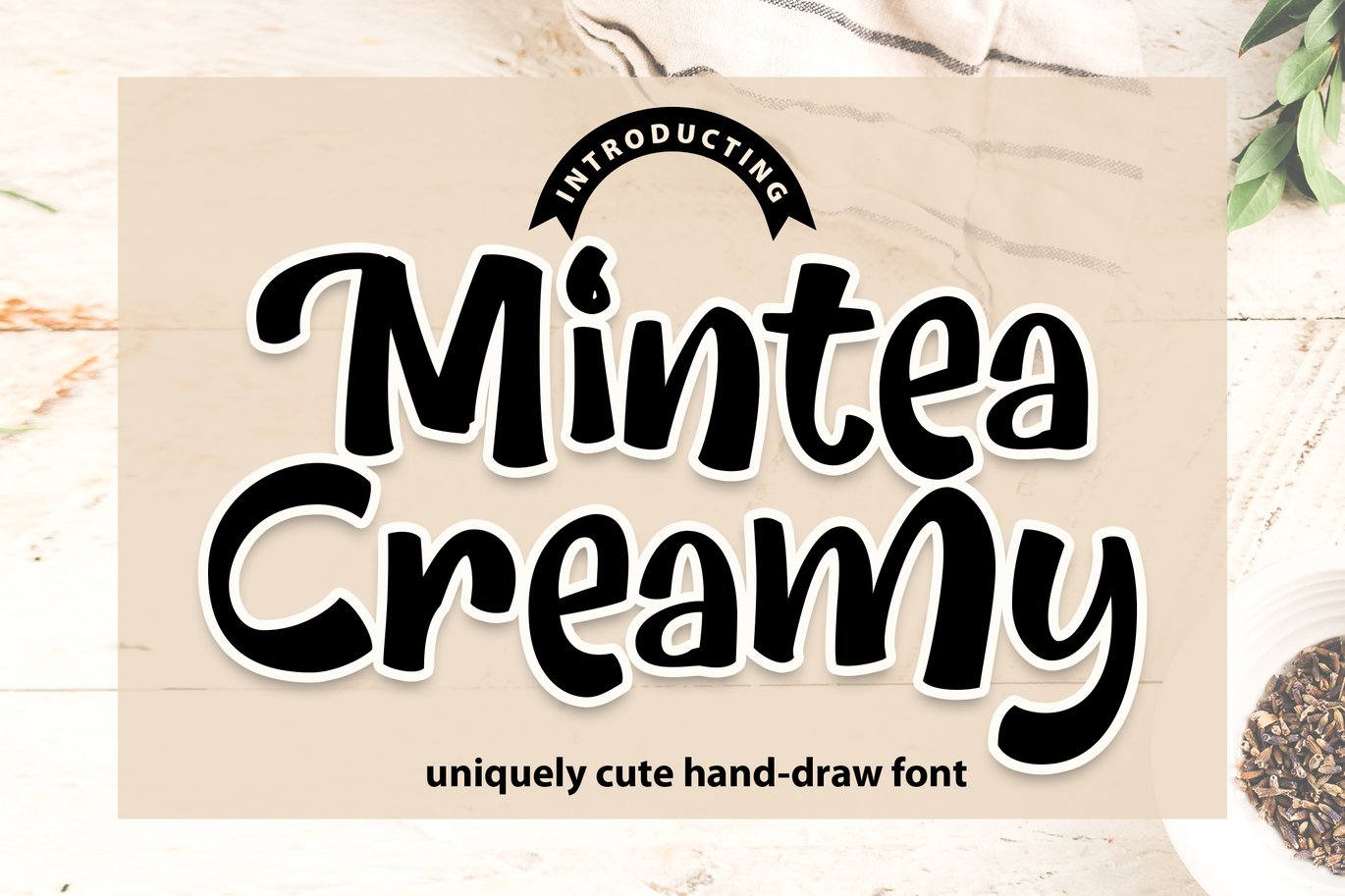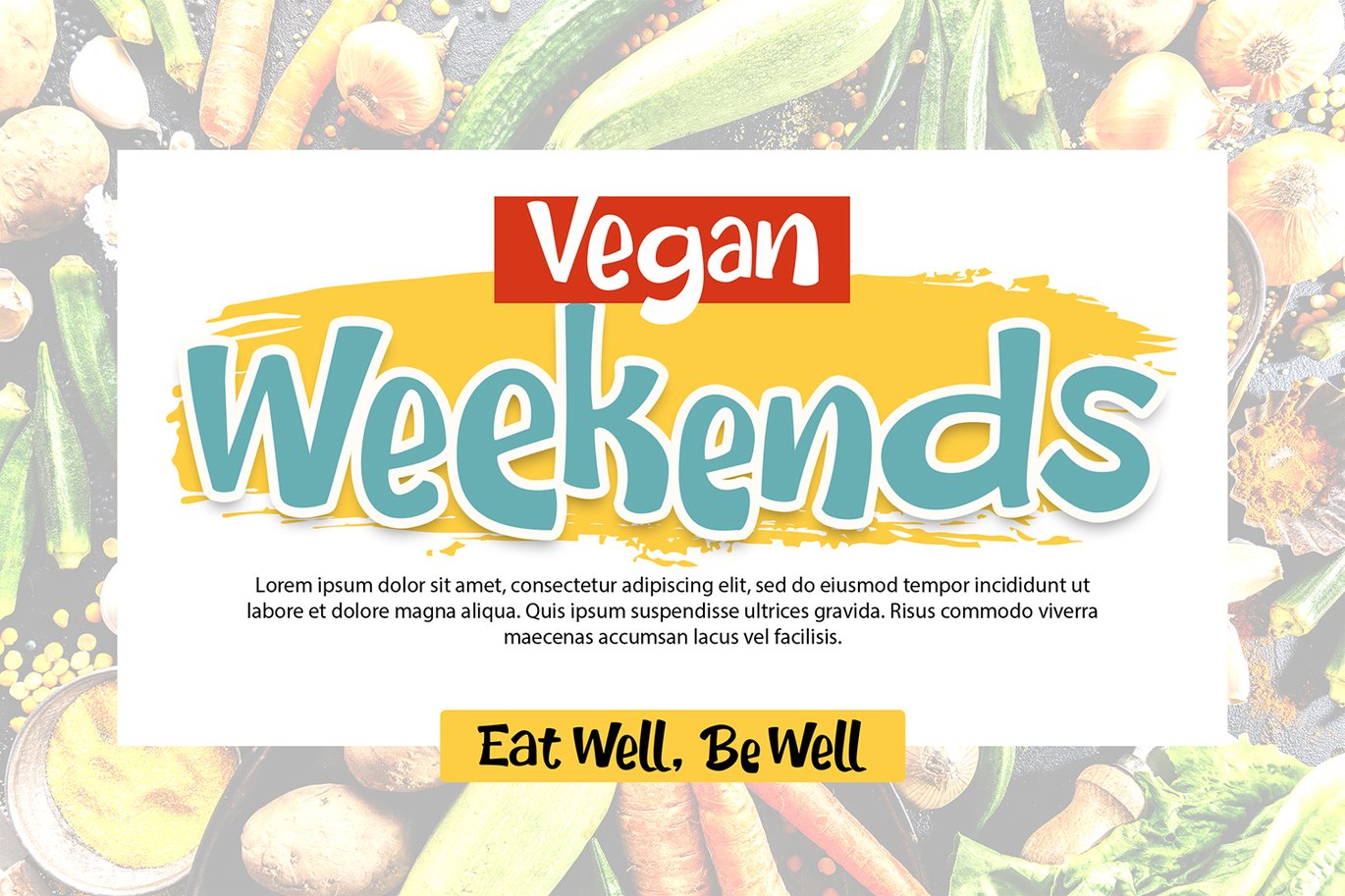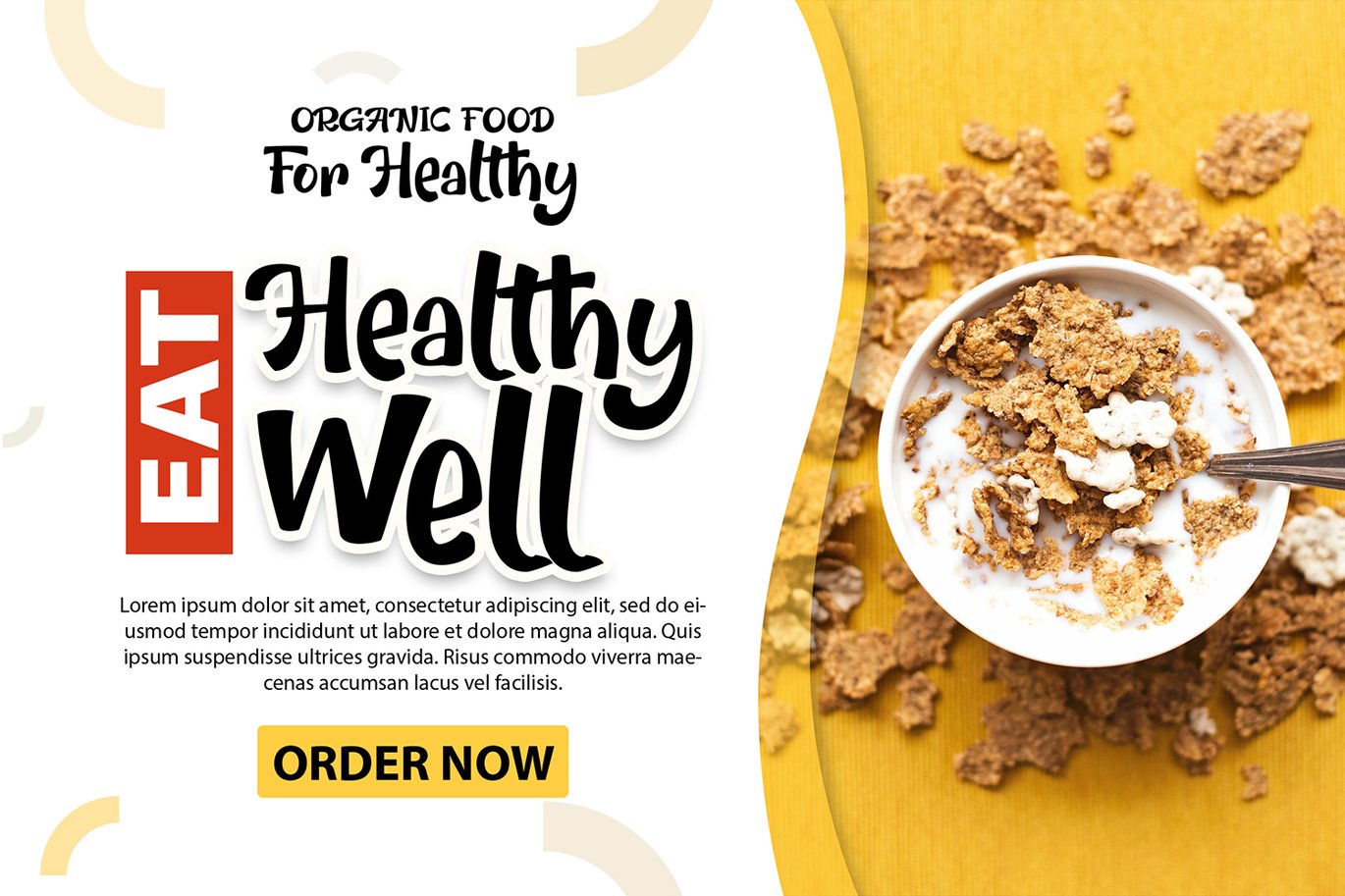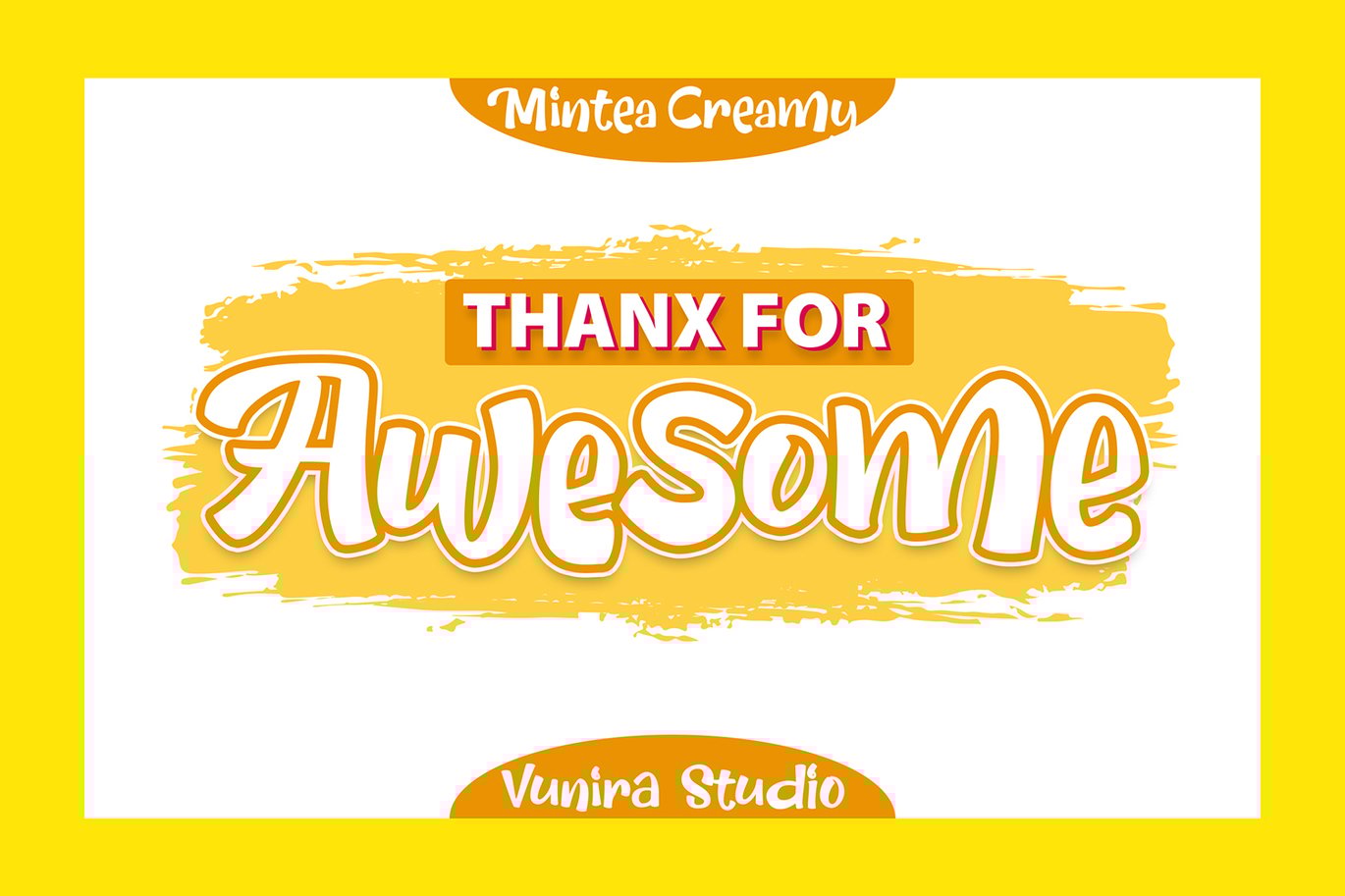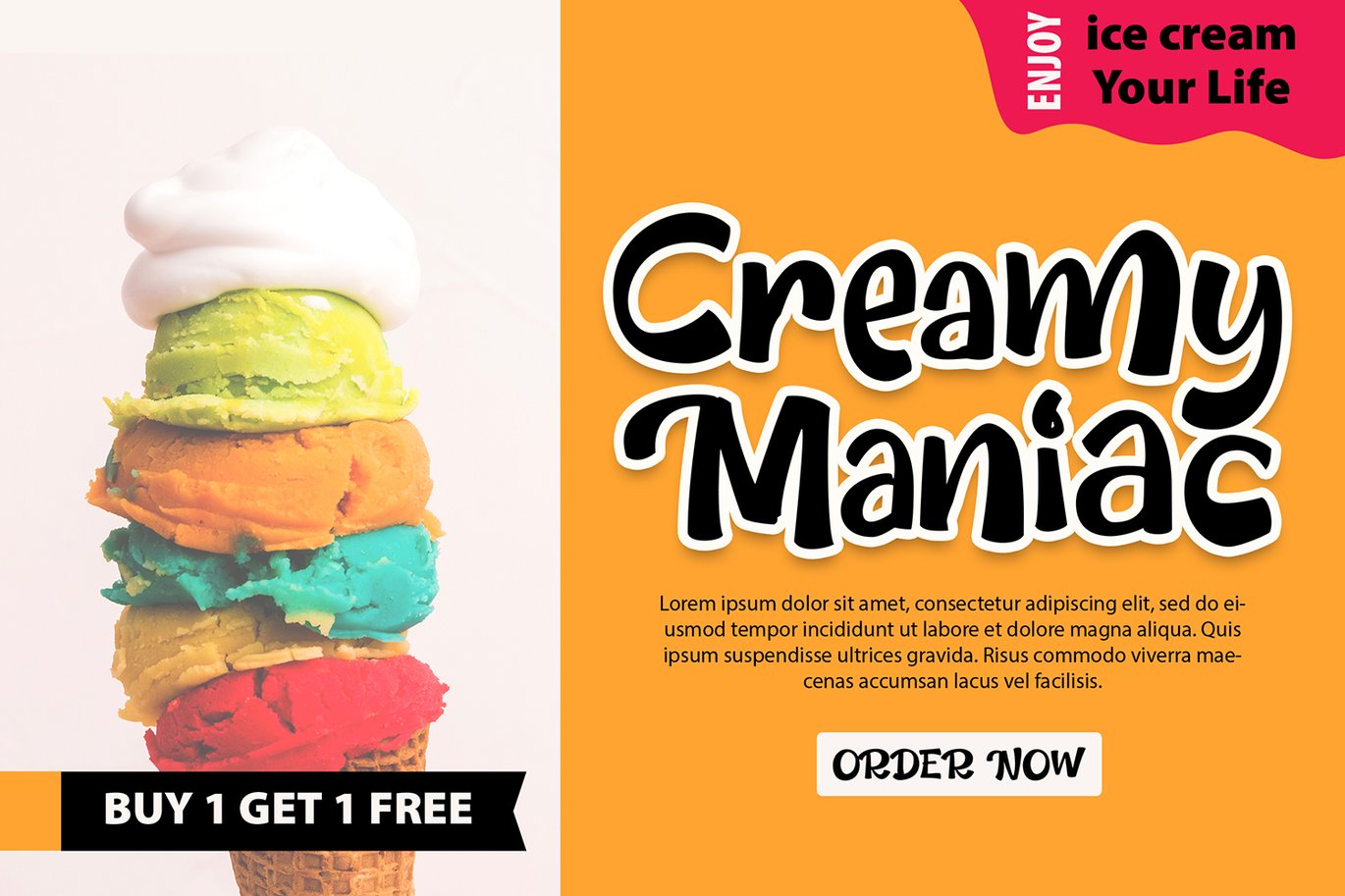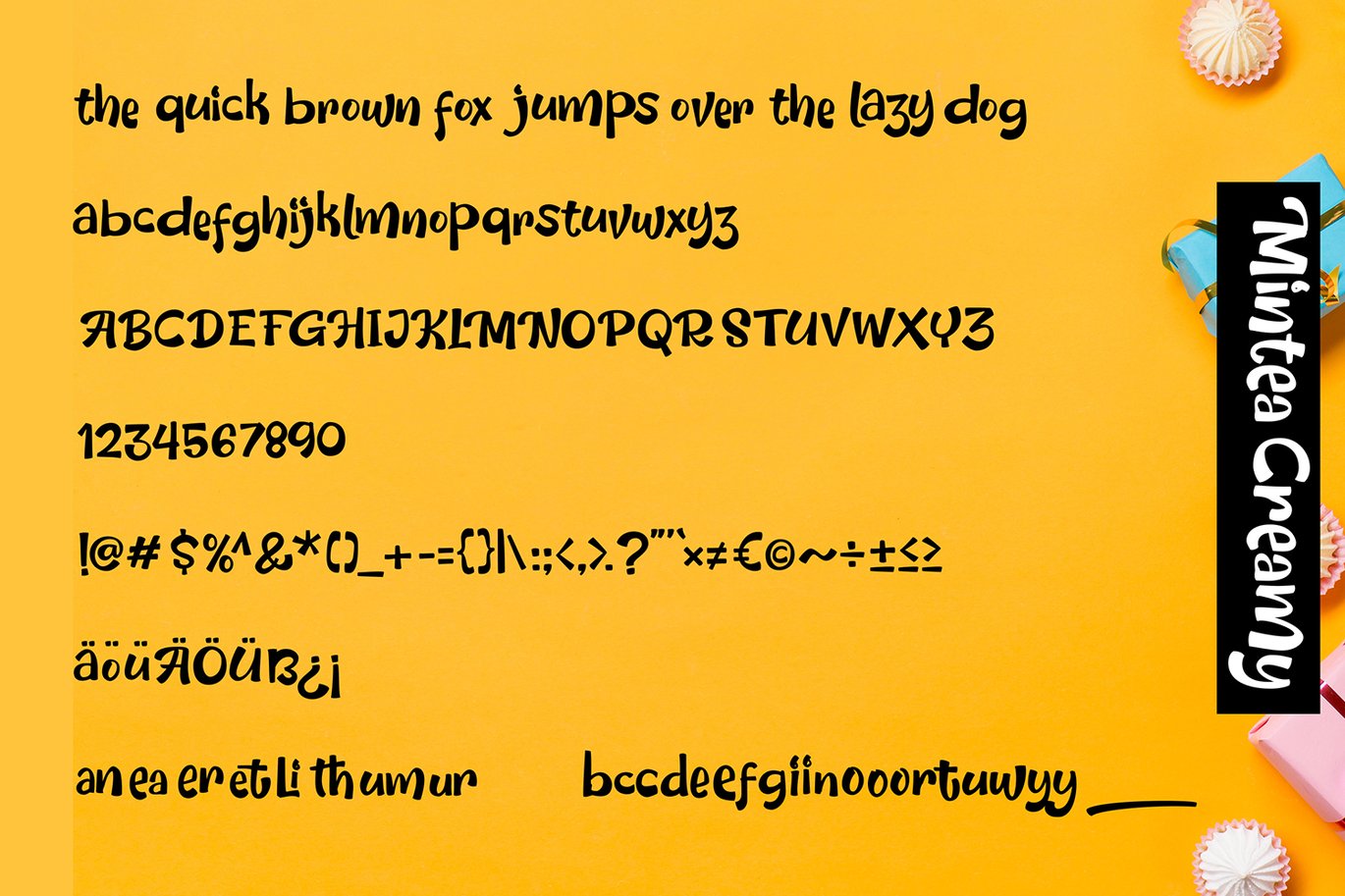
Mintea Creamy | Uniquely Cute Hand-Draw Font
Mintea Creamy | Uniquely Cute Hand-Draw Font with a calligraphy style, So beautiful on invitation like greeting cards, branding materials, business cards, quotes, posters, and more!